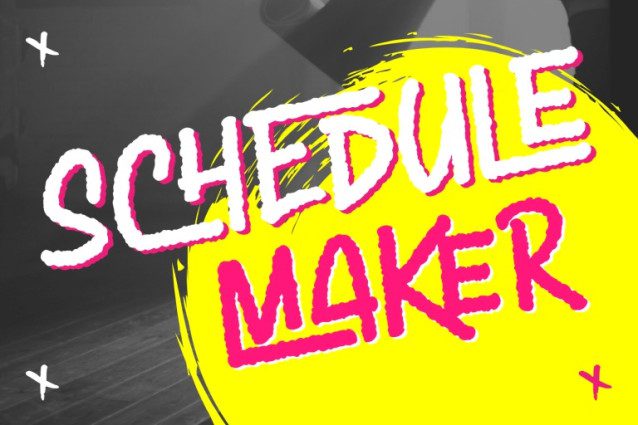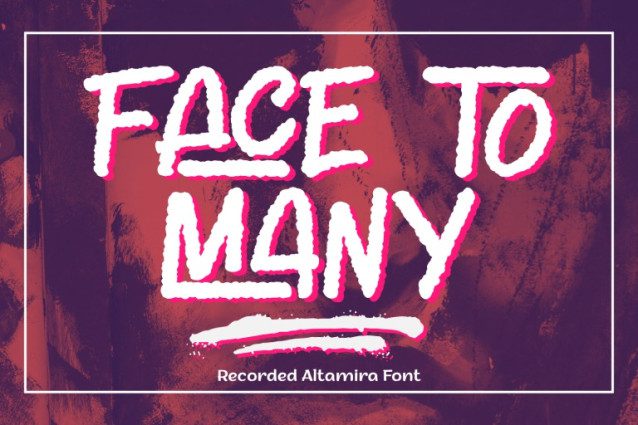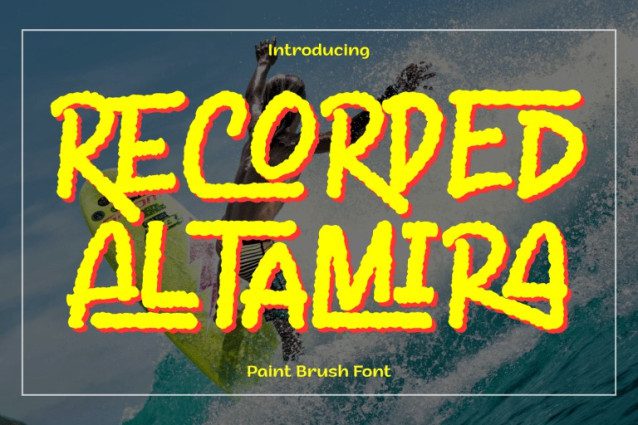
Recorded Altamira Font is a bold and energetic handwritten display font that captures a raw, spontaneous spirit. Each letter is drawn with rugged brush strokes and uneven edges, creating a dynamic and expressive look that feels alive and authentic. The font’s playful irregularities and textured outlines give it a handcrafted aesthetic, perfect for projects that need a sense of creativity, rebellion, or outdoor adventure.
Designed with strong movement and contrast, Recorded Altamira brings an artistic edge to posters, album covers, surf brands, streetwear, and energetic titles. Its natural flow and rough texture make it feel both wild and human, striking a balance between chaos and style.
Uppercase Letters
~100 Special Ligatures
Accented Characters for multilingual support